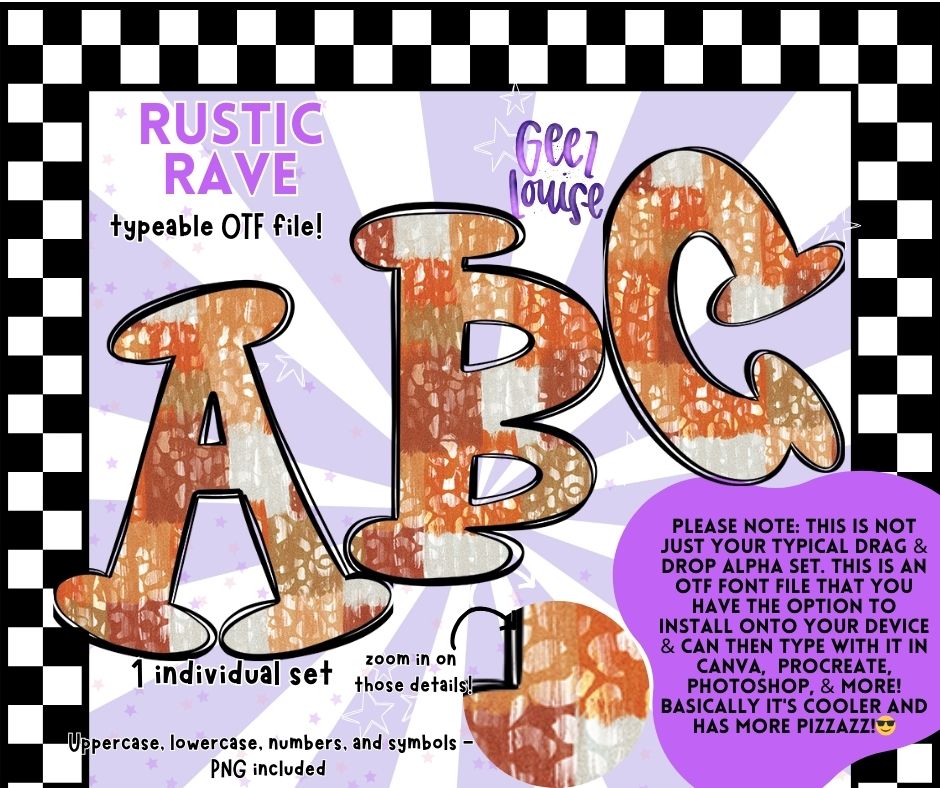
Rustic Rave - OTF Font + PNG Alpha Set
Say hello to Rustic Rave — a typeable OTF alpha that brings artsy texture and rich, earthy tones together in perfect harmony. Featuring a hand-painted grunge grid style in rust, copper, and cream, this set is ideal for bold designs, cozy autumn vibes, or edgy vintage flair.
Includes uppercase, lowercase, numbers, and select symbols, so you can type your way into textured perfection. Also comes with high-resolution PNGs for drag-and-drop versatility.